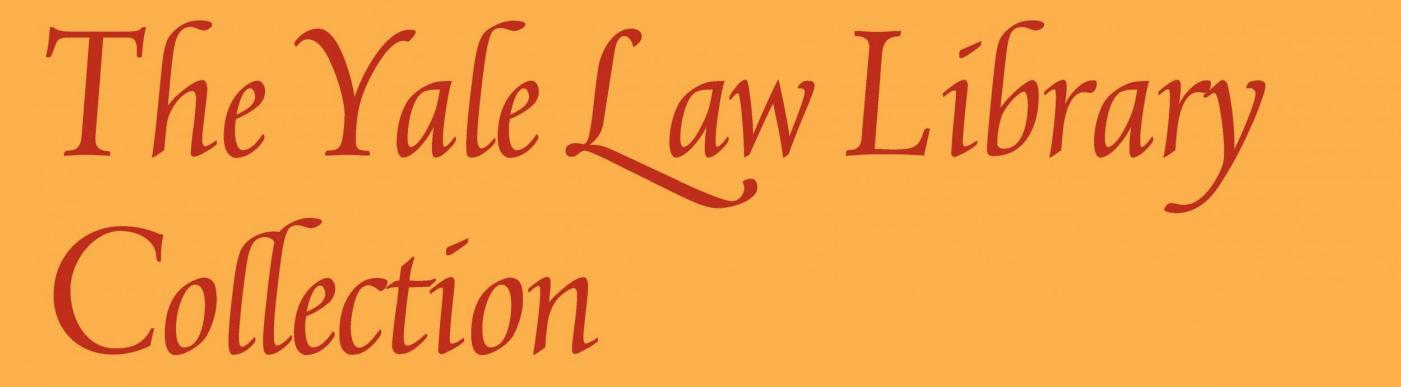
Chancery italic font from Yale Law Library Collection book
I have looked everywhere (identifont, myfonts, Luc Devroye's encyclopedia, etc.) and used multiple font identification tools to find this beautiful chancery typeface but to no avail.
It is close to Poetica, Chicory, Arno Italic... but still different.
It is used on the attached poster.
I initially thought it was Poetica but it's definitely not.
The exhibit dates from 2017, and the poster seems to have been created by the folks at The Grolier Club.
The rest of the type on the poster is Centaur, and the more calligraphic headline bears a resemblance to Centaur Italic, but I am not finding it anywhere.
I don't know who made the poster (possibly Jerry Kelly from the Grolier Club). The exhibition lasted from September to November 2017. I got the image from flickr but it is also available on the Grolier Club website.
Thank you for your contribution. Indeed, the headline italics are not Arrighi...